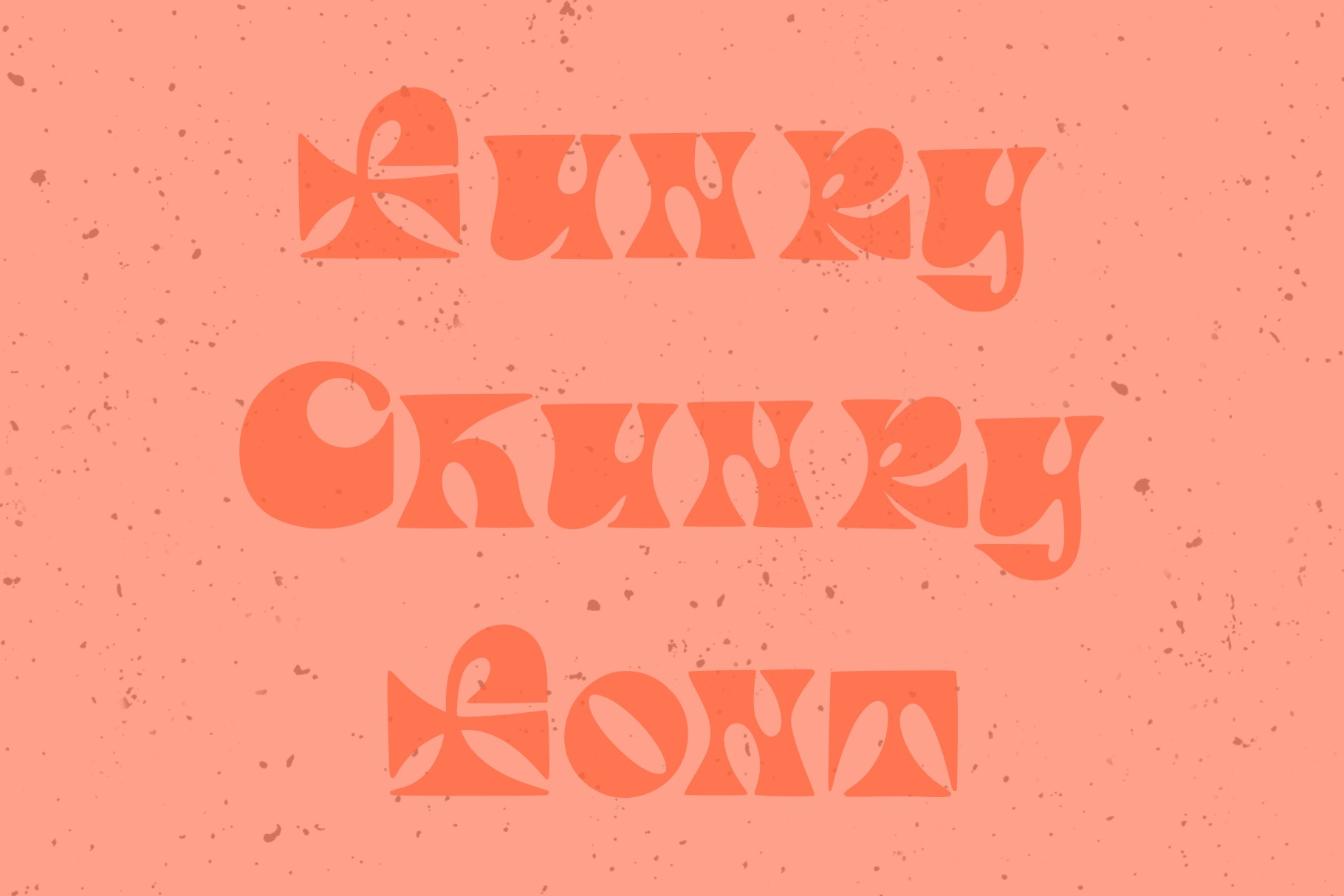
Funky Chunky 70s Hand Lettered Font
This super funky and very chunky hand lettered font was inspired by the playful lettering of 1970s posters, album covers, and product packaging.